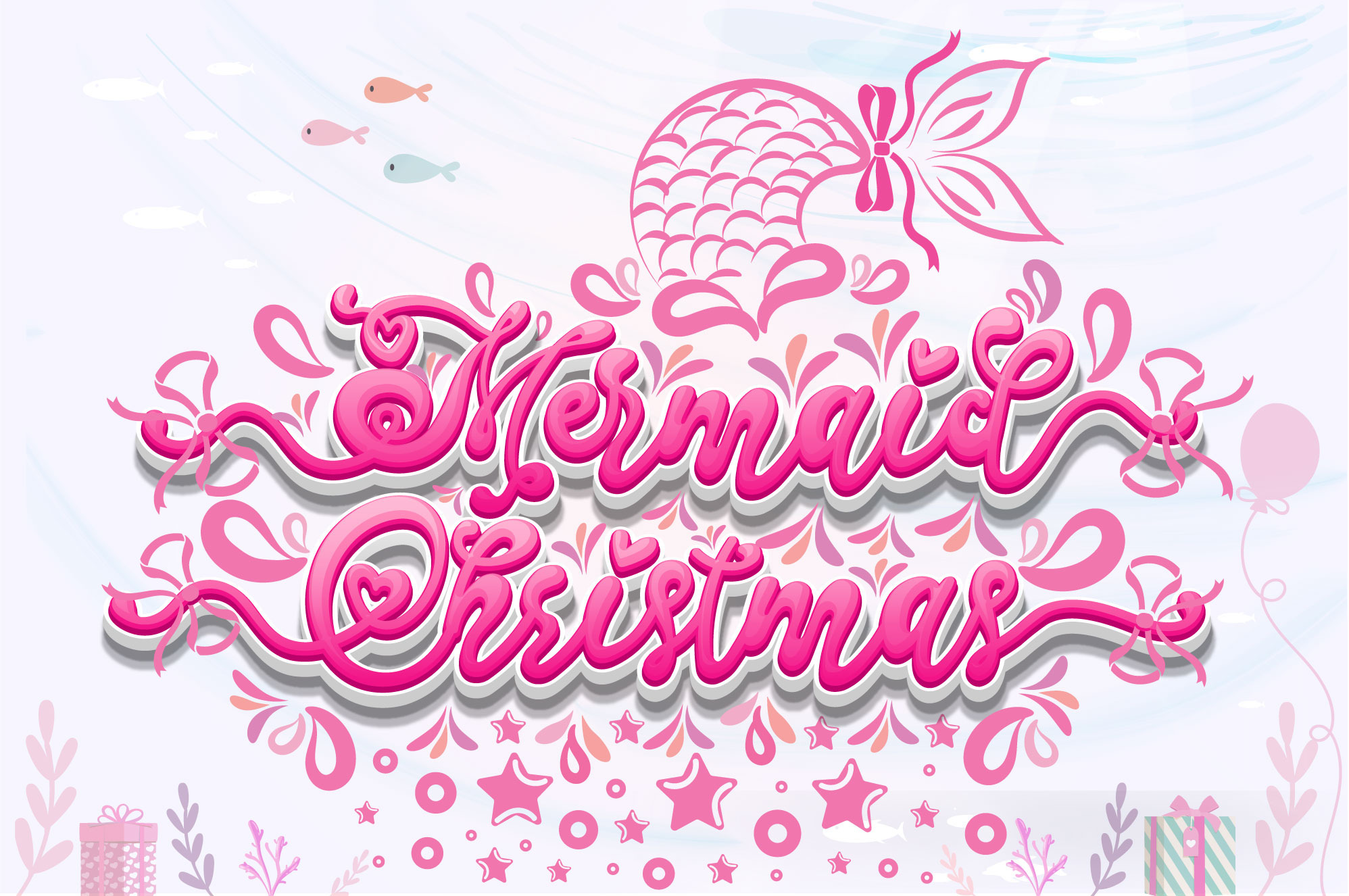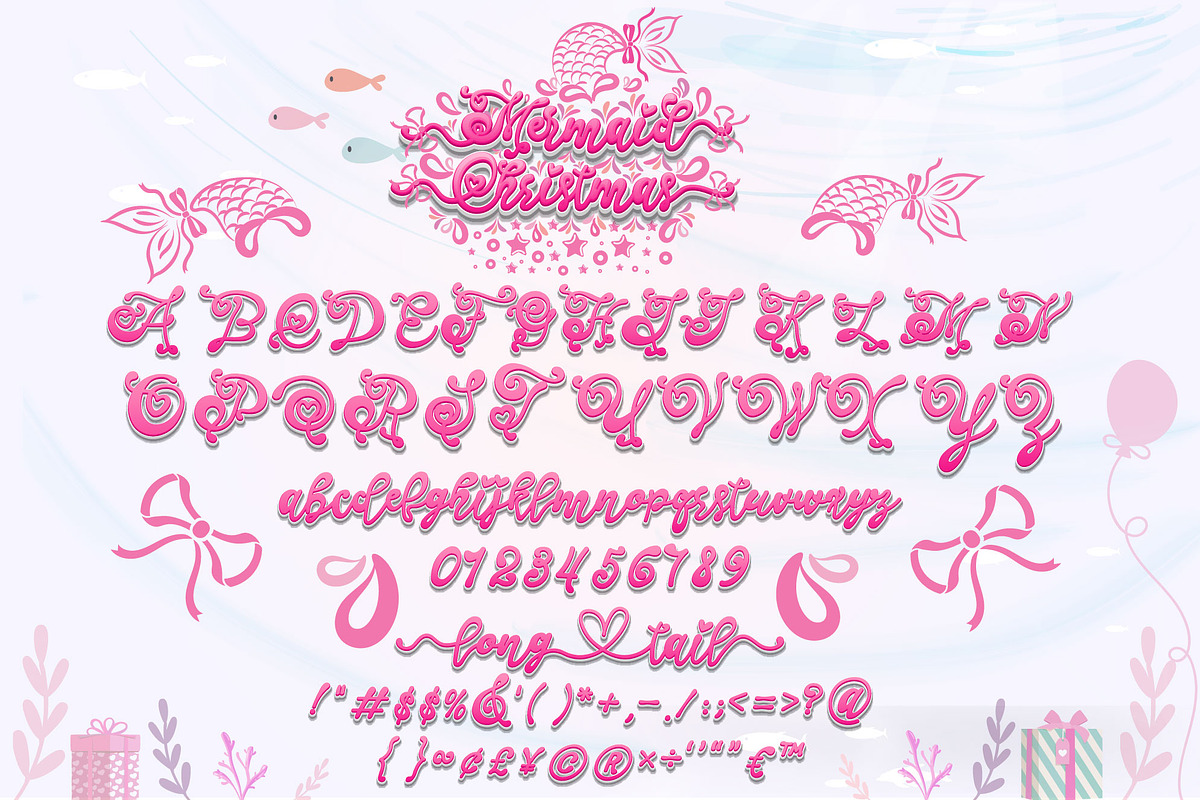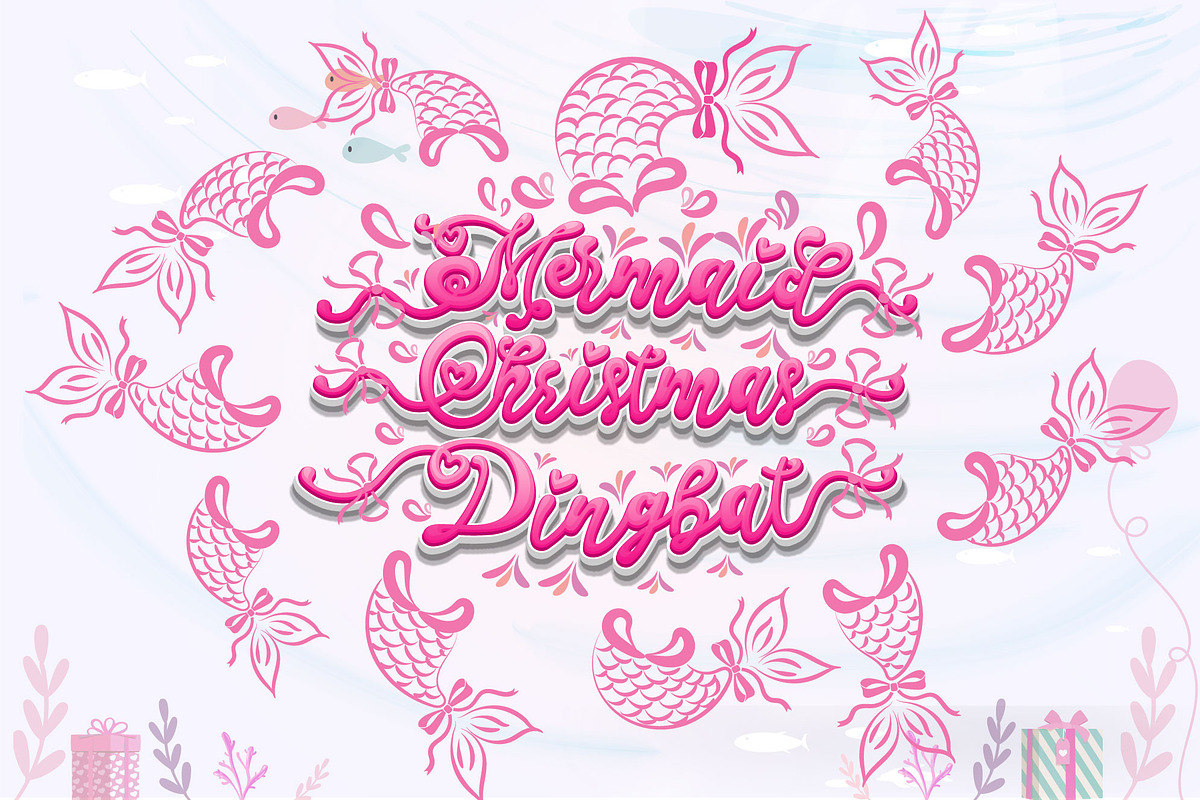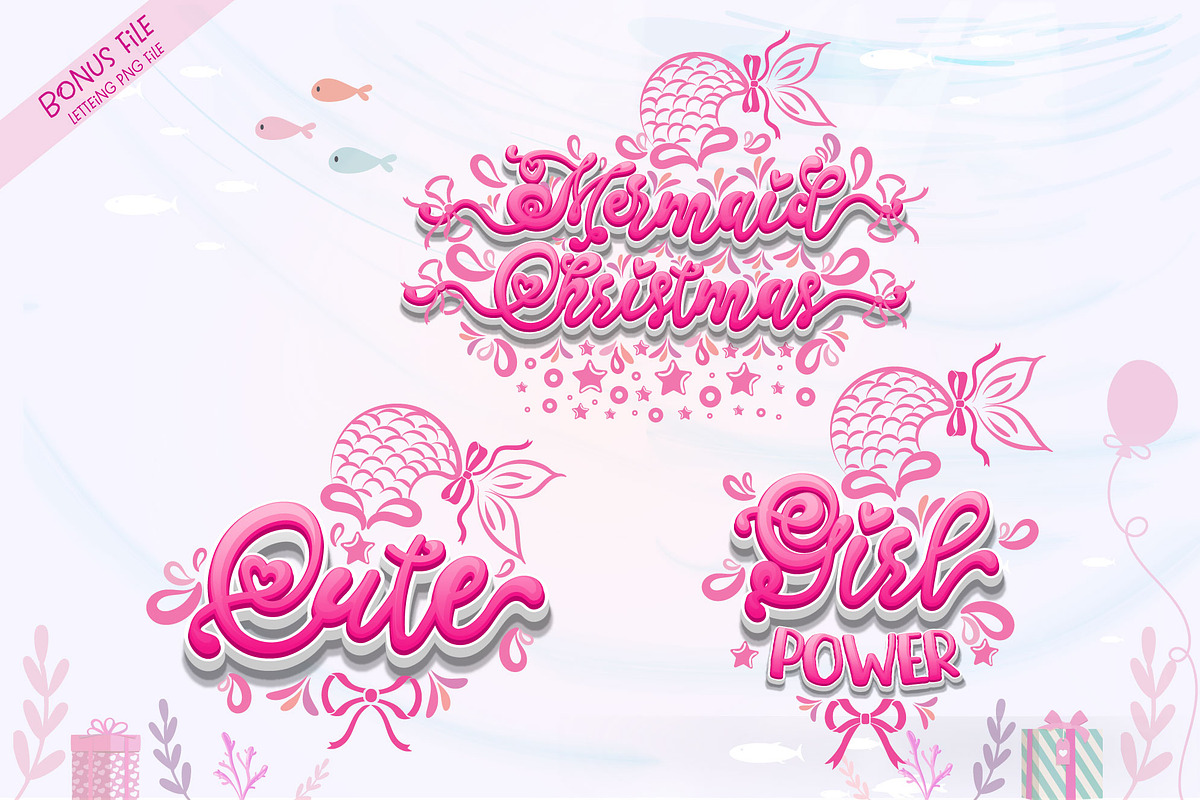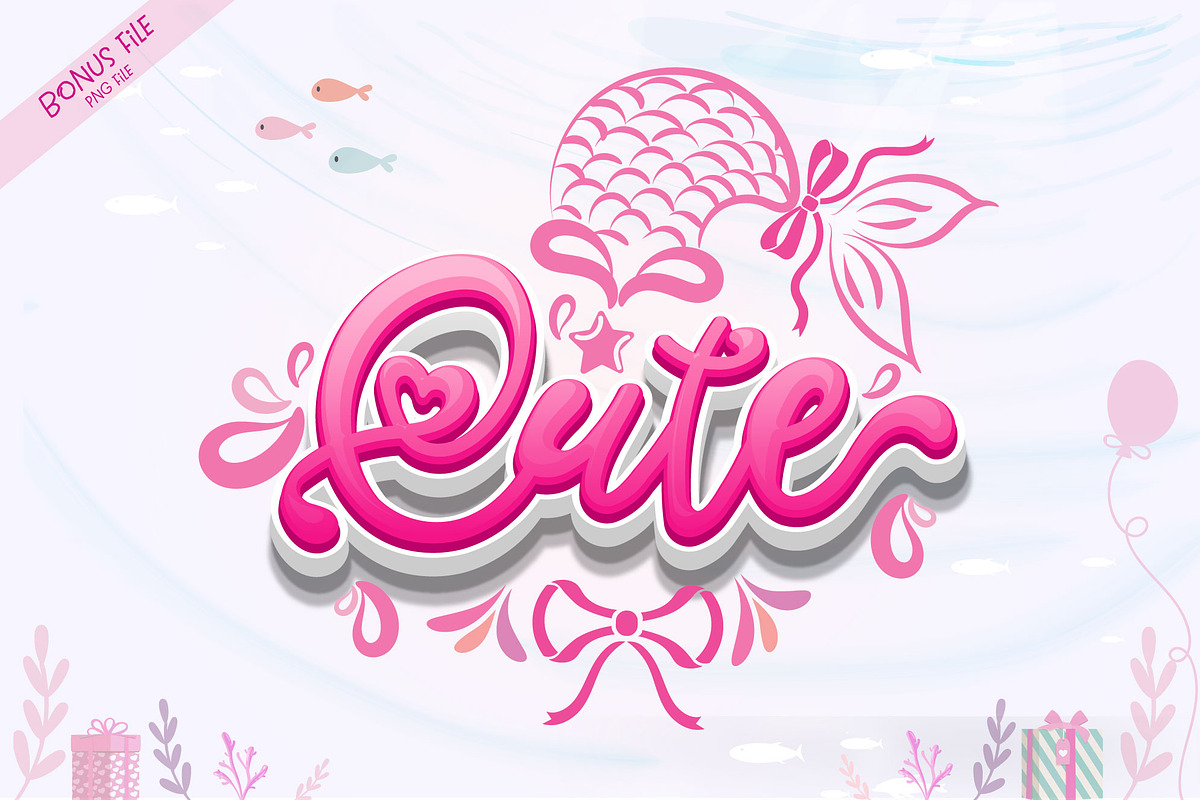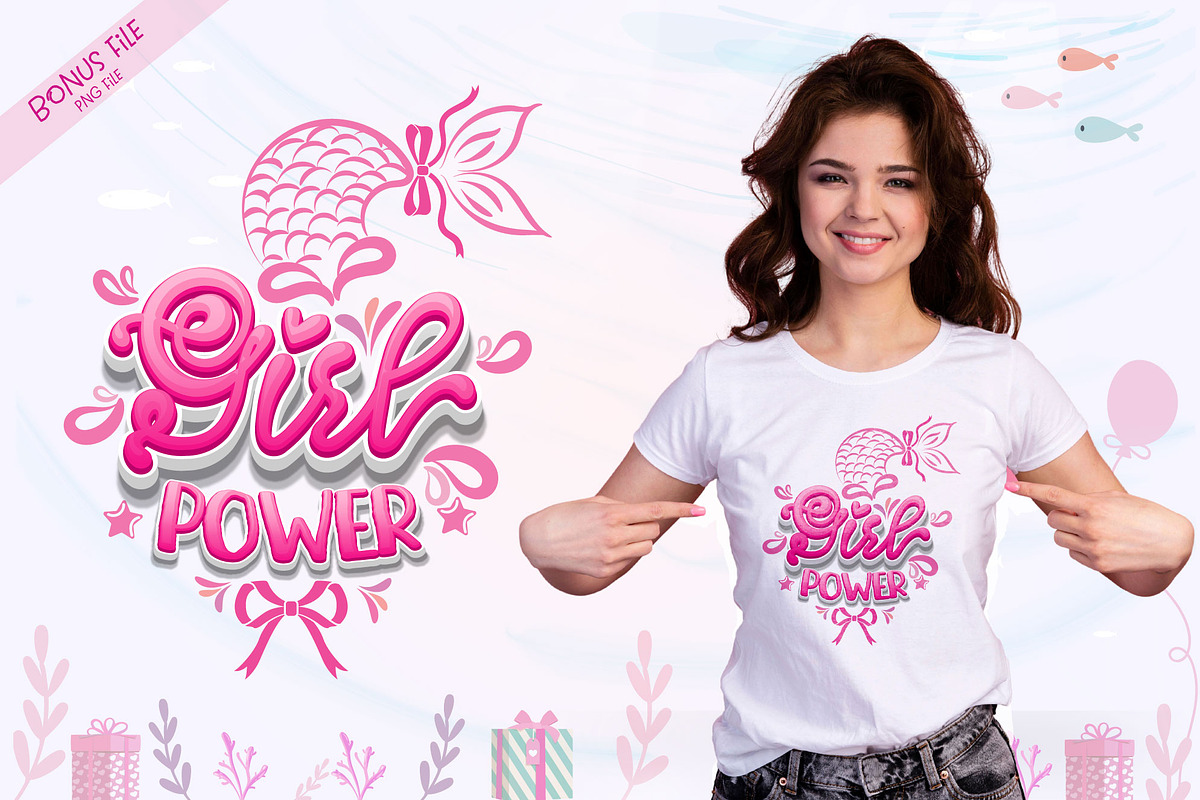
Mermaid Christmas Font
Mermaid Christmas is a delightful duo of fonts designed to infuse your projects with a touch of chic and cheer. Perfectly complementary, these fonts are your go-to choice for adding a dash of whimsy to your crafts. Mermaid Christmas is PUA encoded for effortless access to all glyphs and swashes. Dive into a world of creativity with this enchanting font pair!